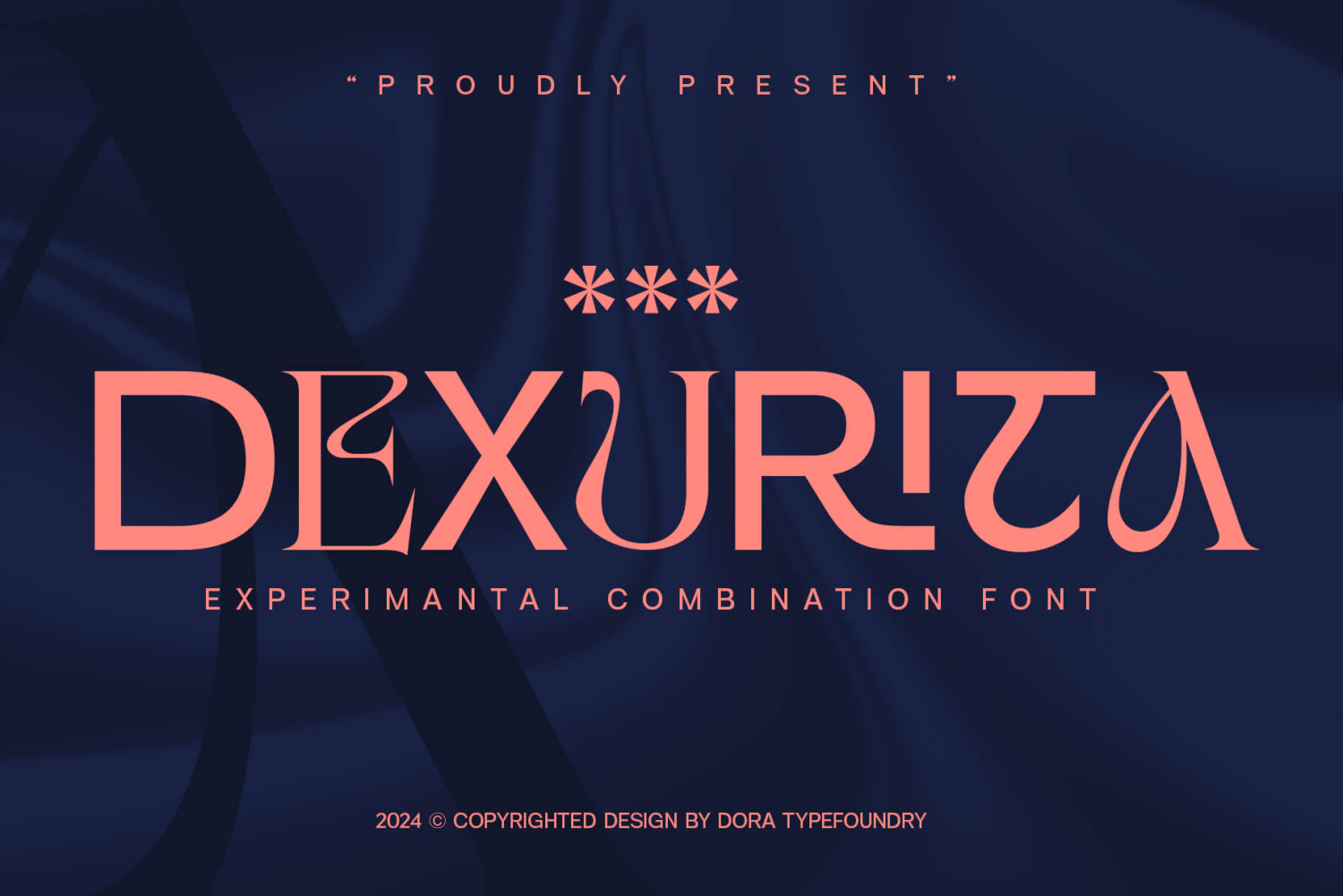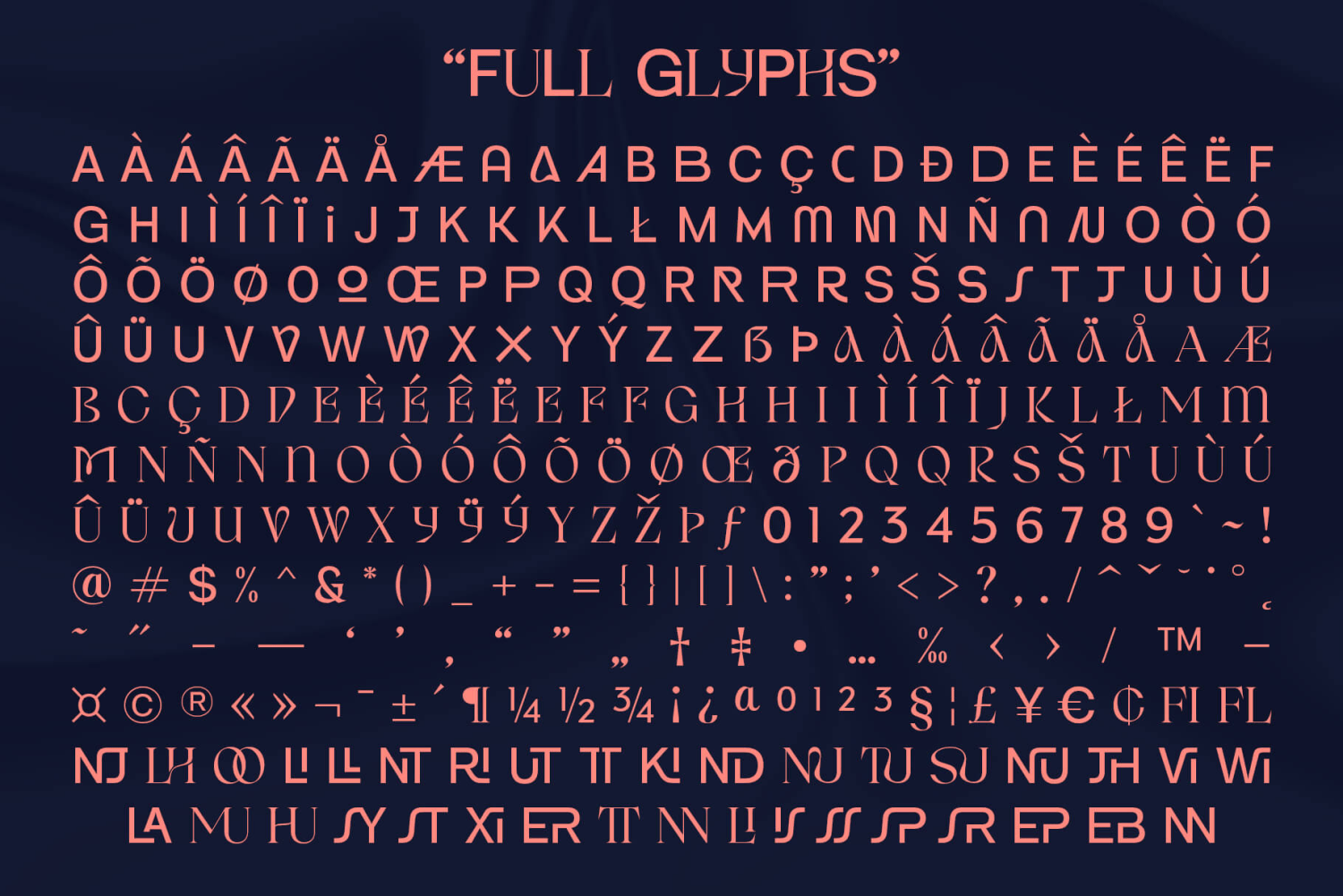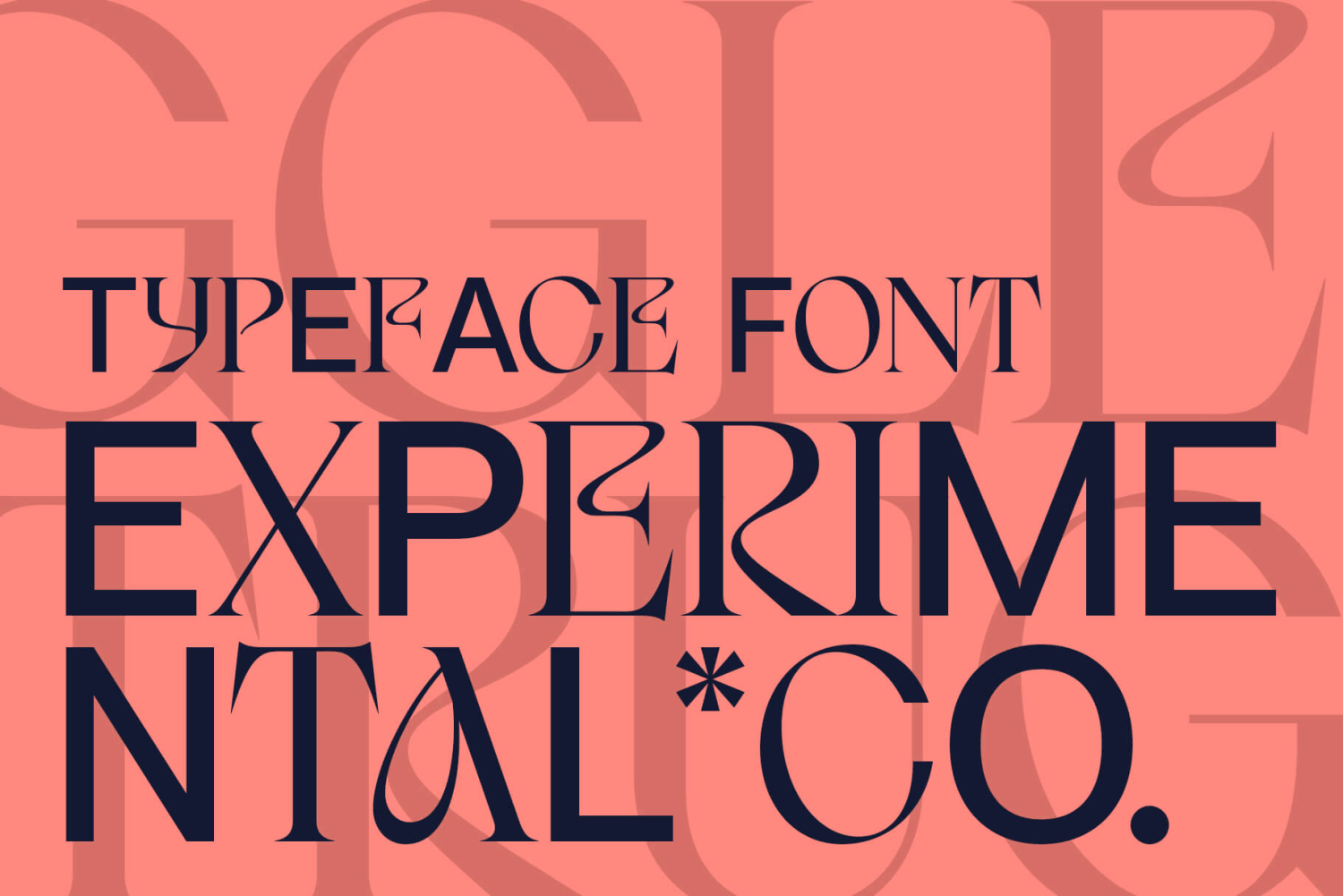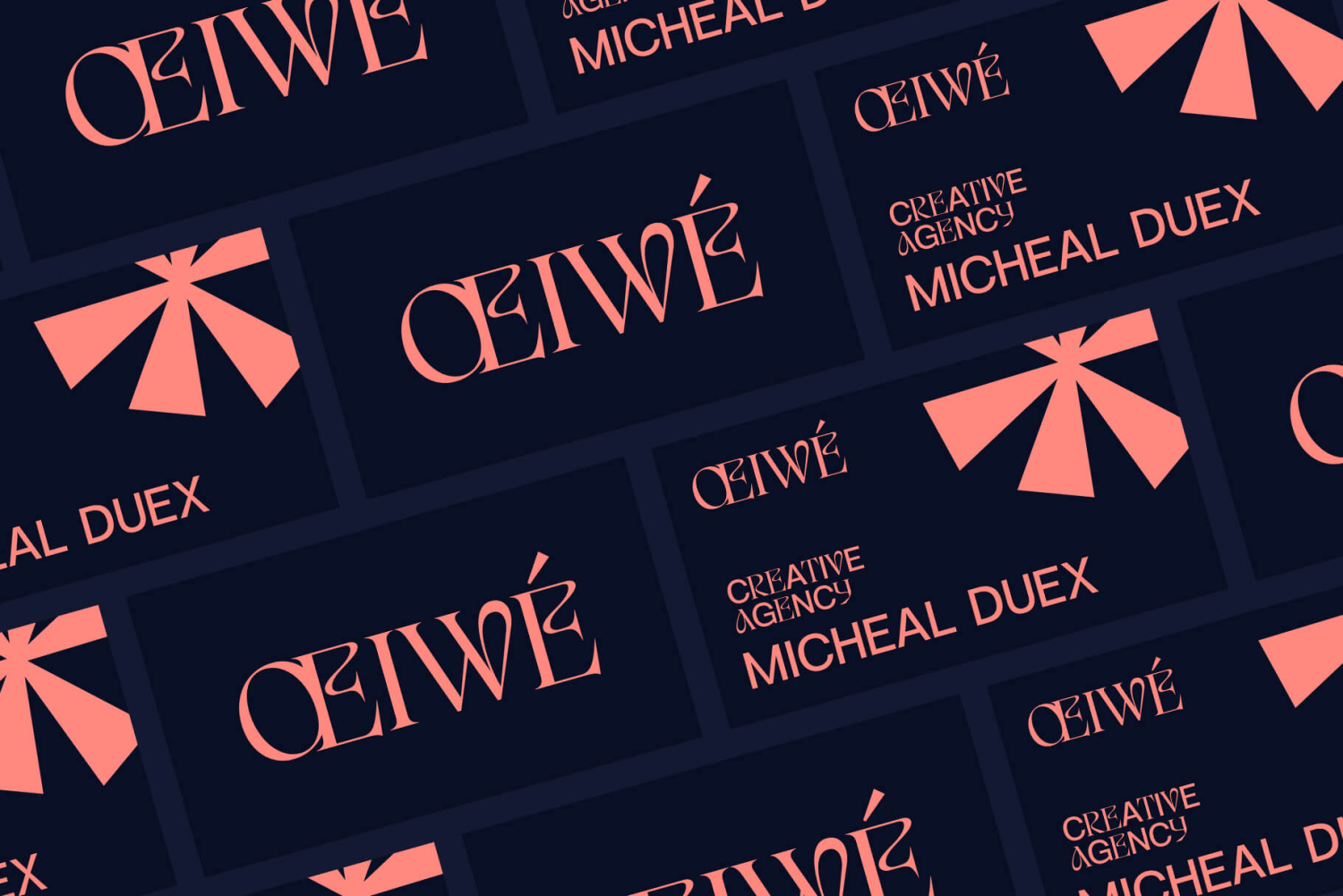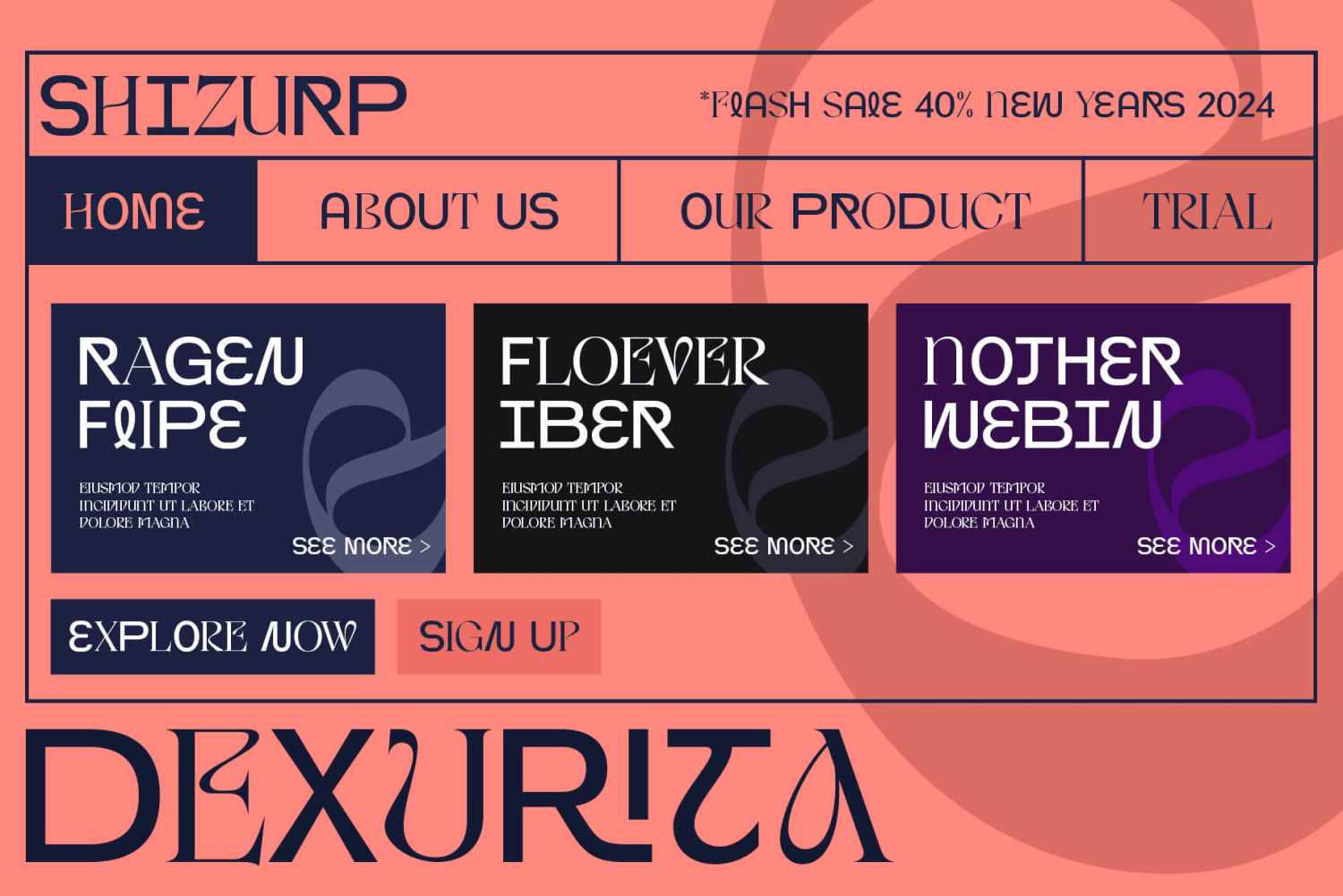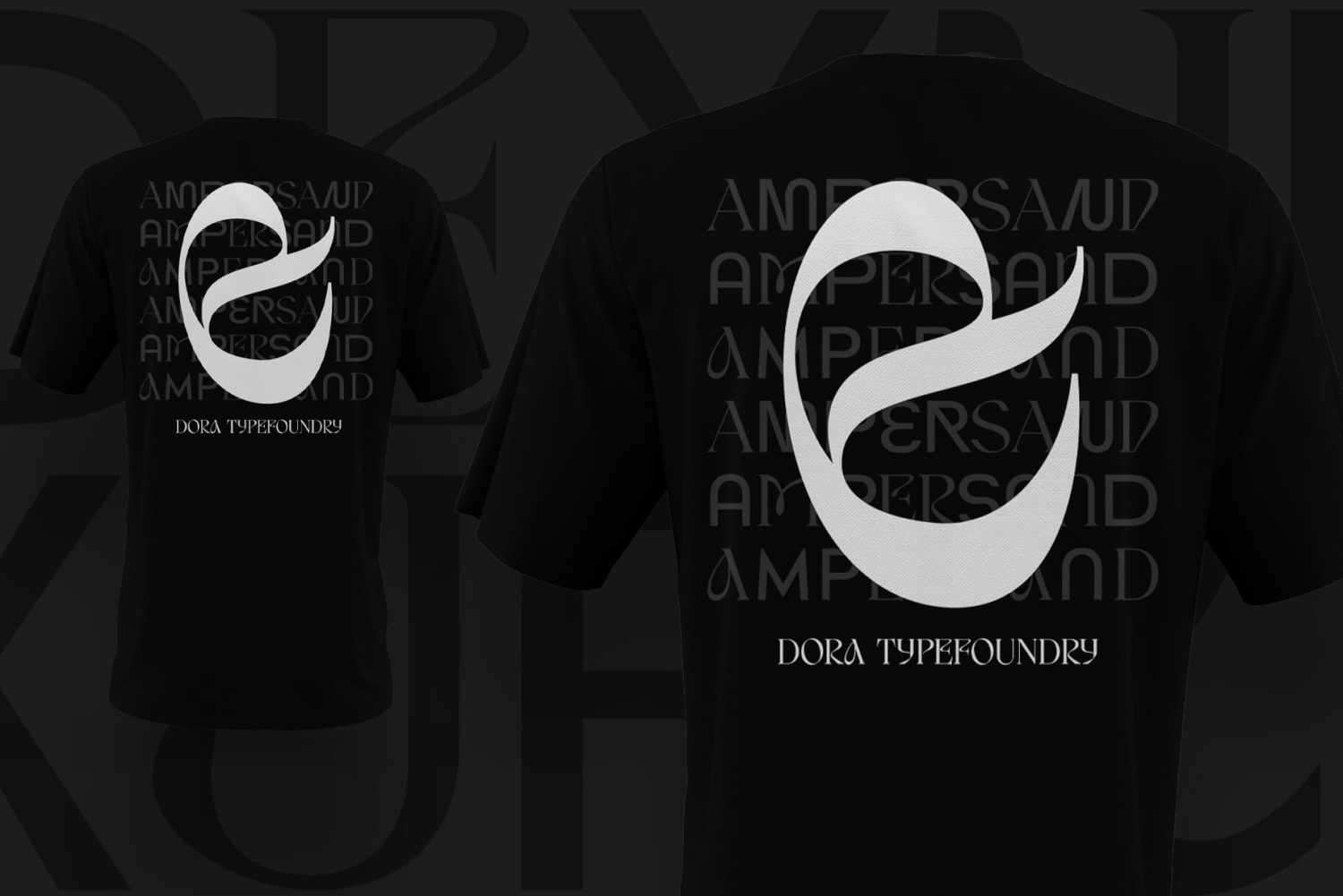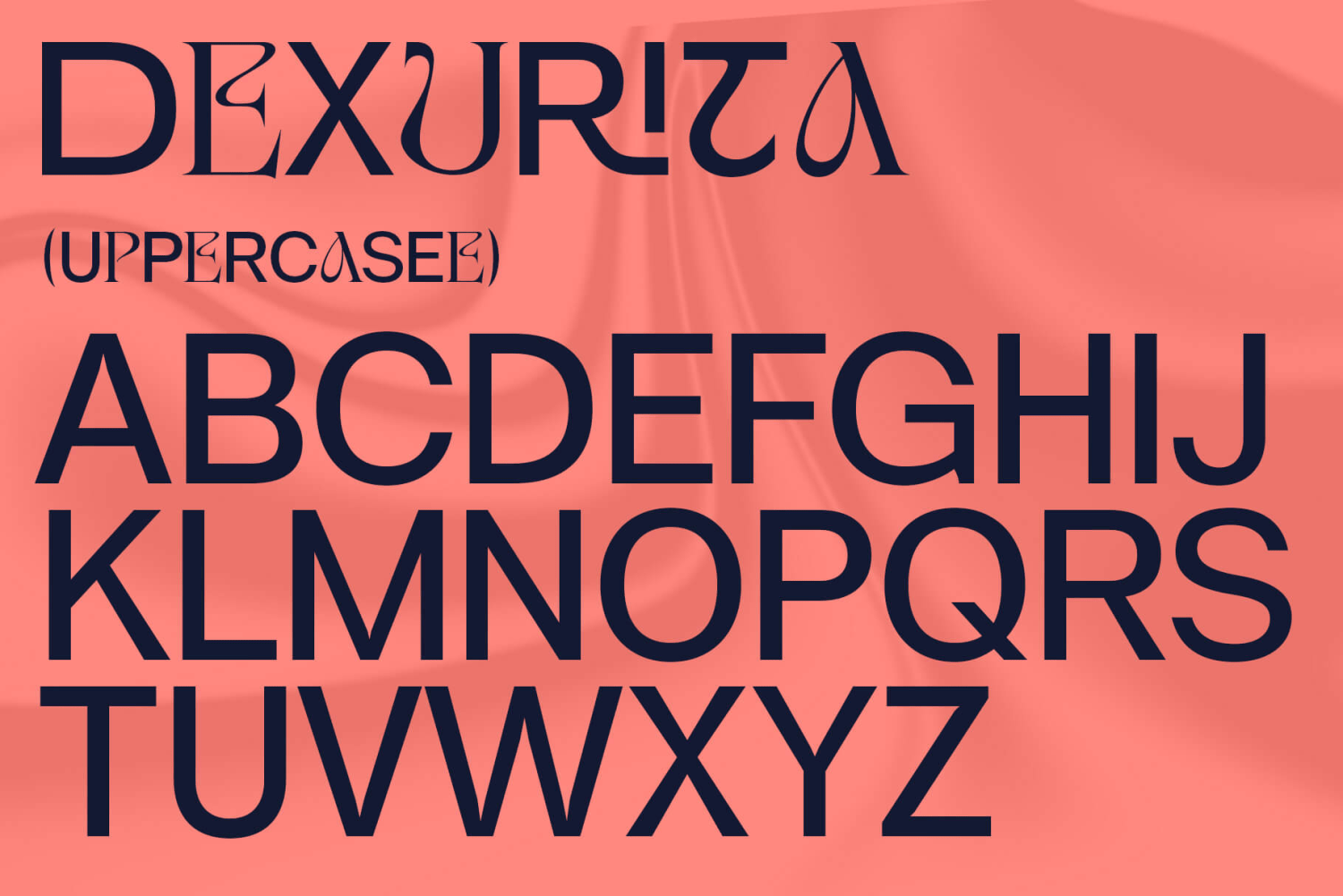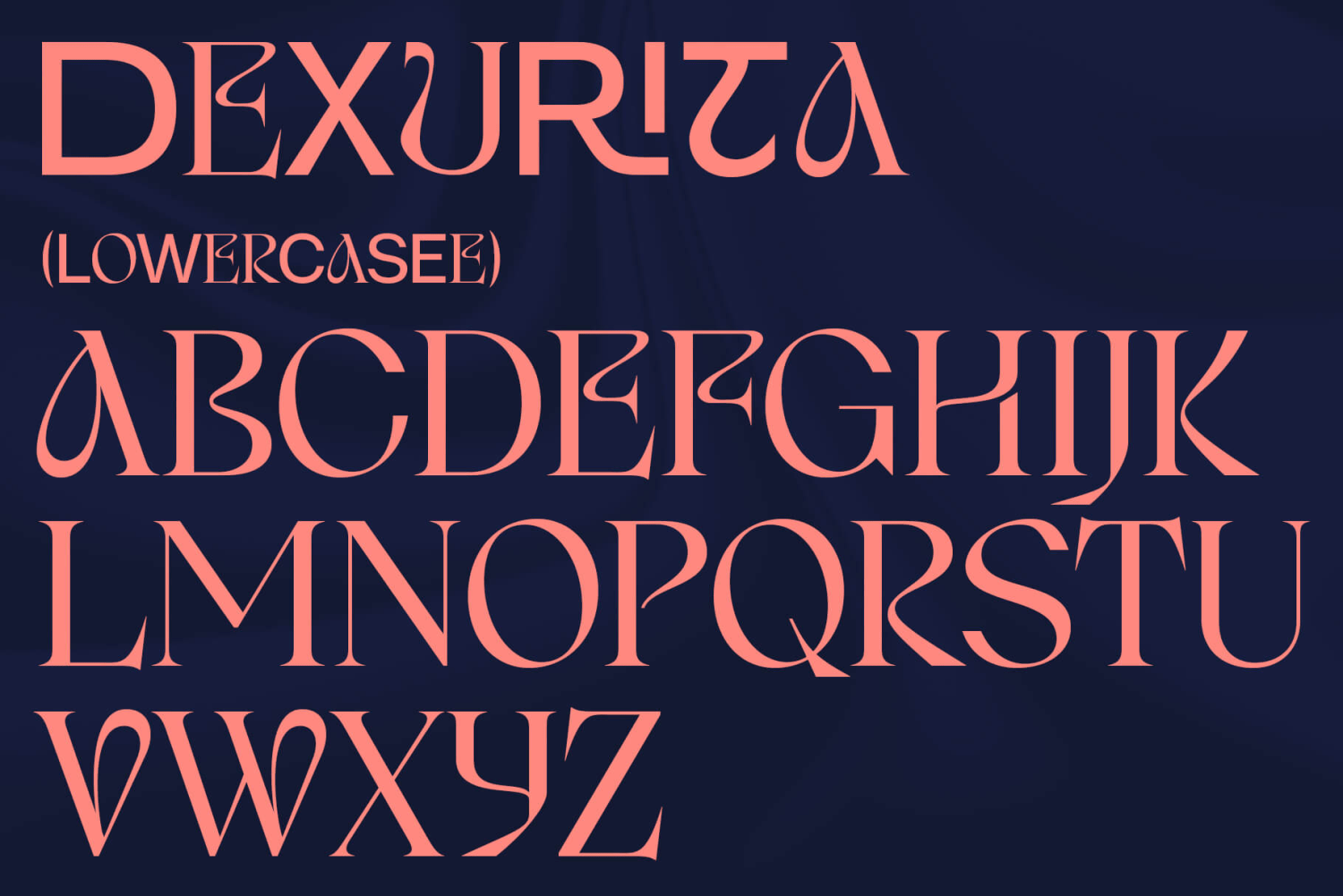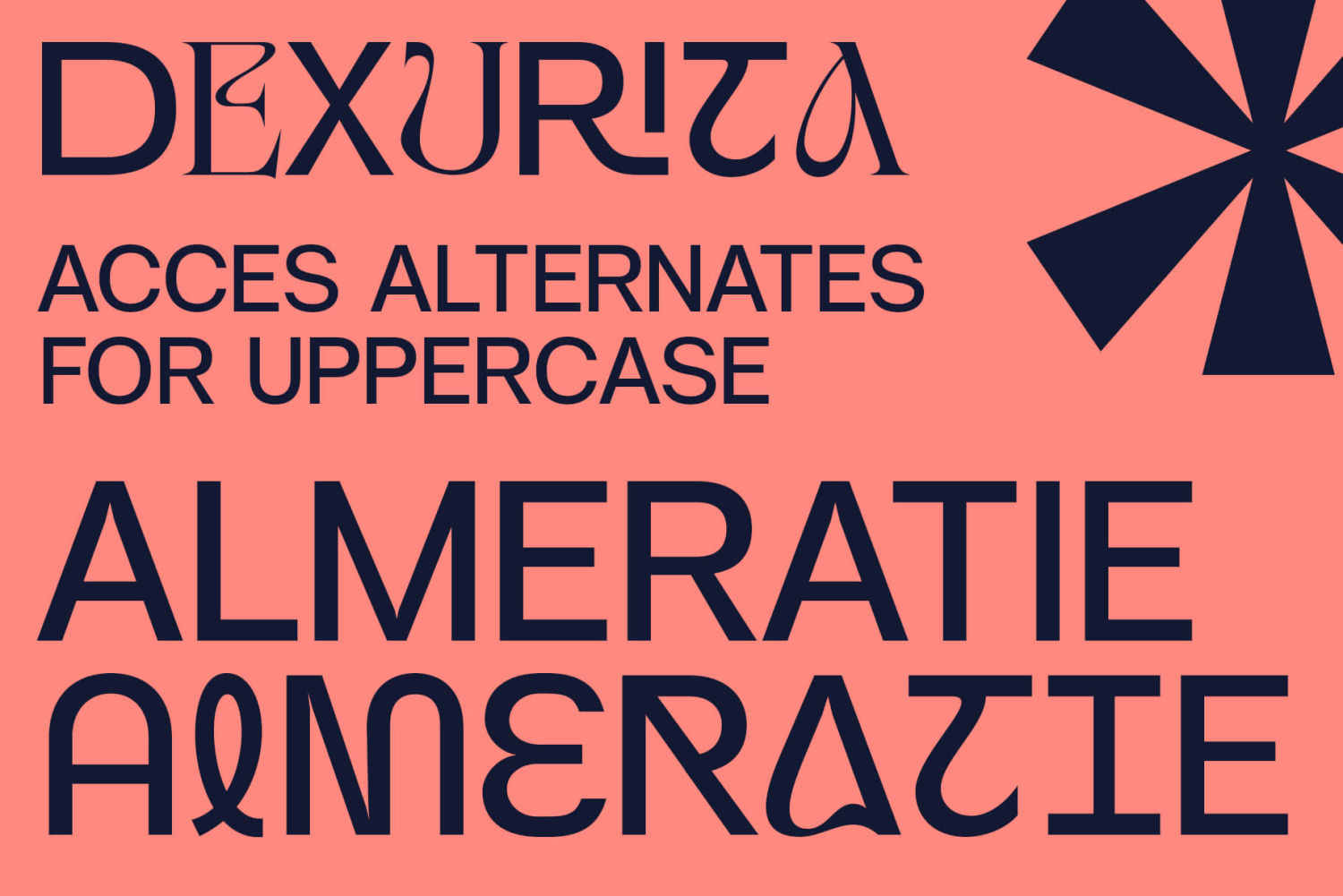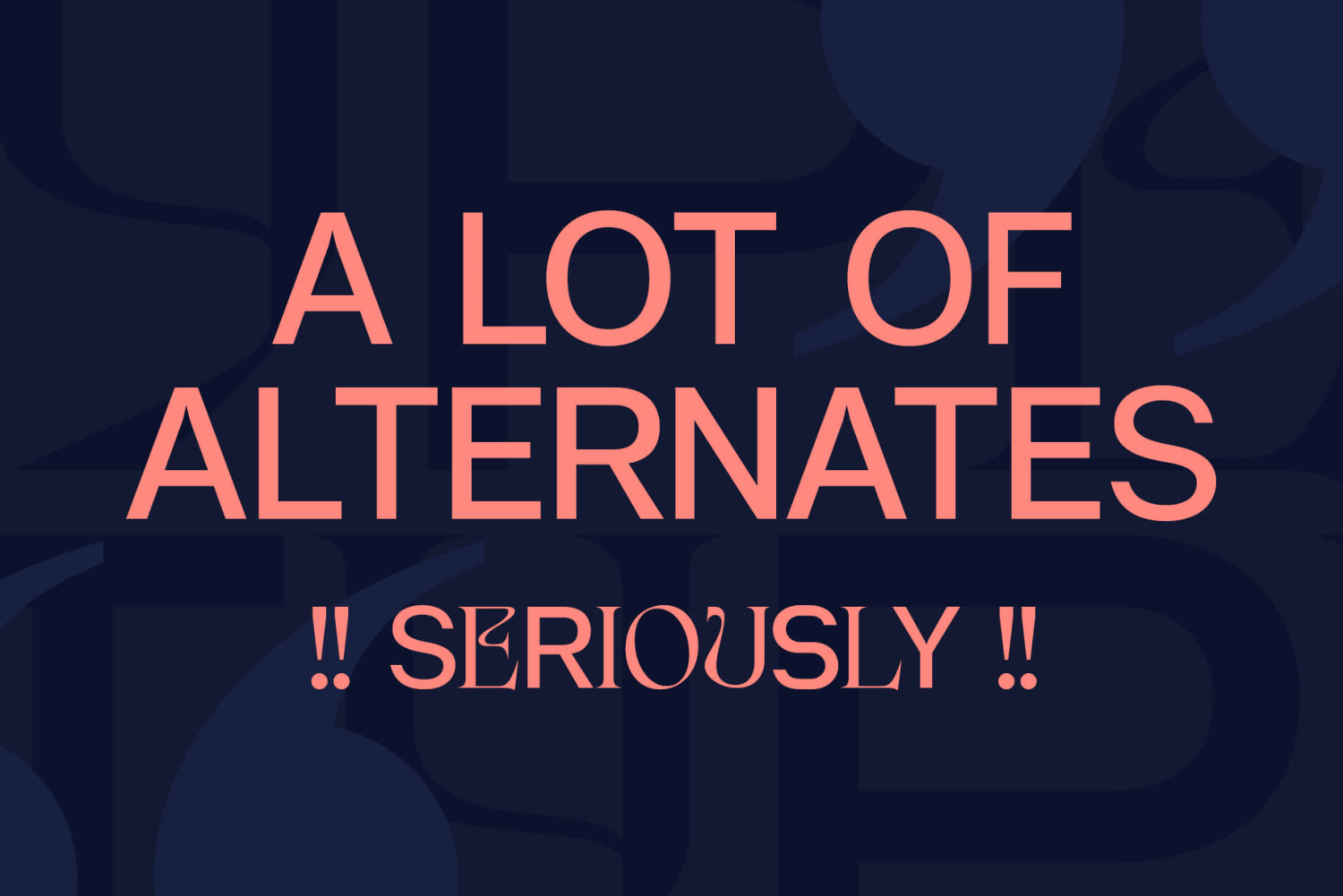
Dexurita
Font Family by Dora Typefoundry
Dexurita is a mix of modern sans and serif combined in one beautiful and inspiring font. I also love the combination of Sans and serif which makes it classic and nostalgic. Dexurita brings a touch of charm and sophistication. It is recommended that you can use this font for magazines, posters, logos, titles, quotes, and is suitable for headlines. which makes your text stand out! You can see in the picture.